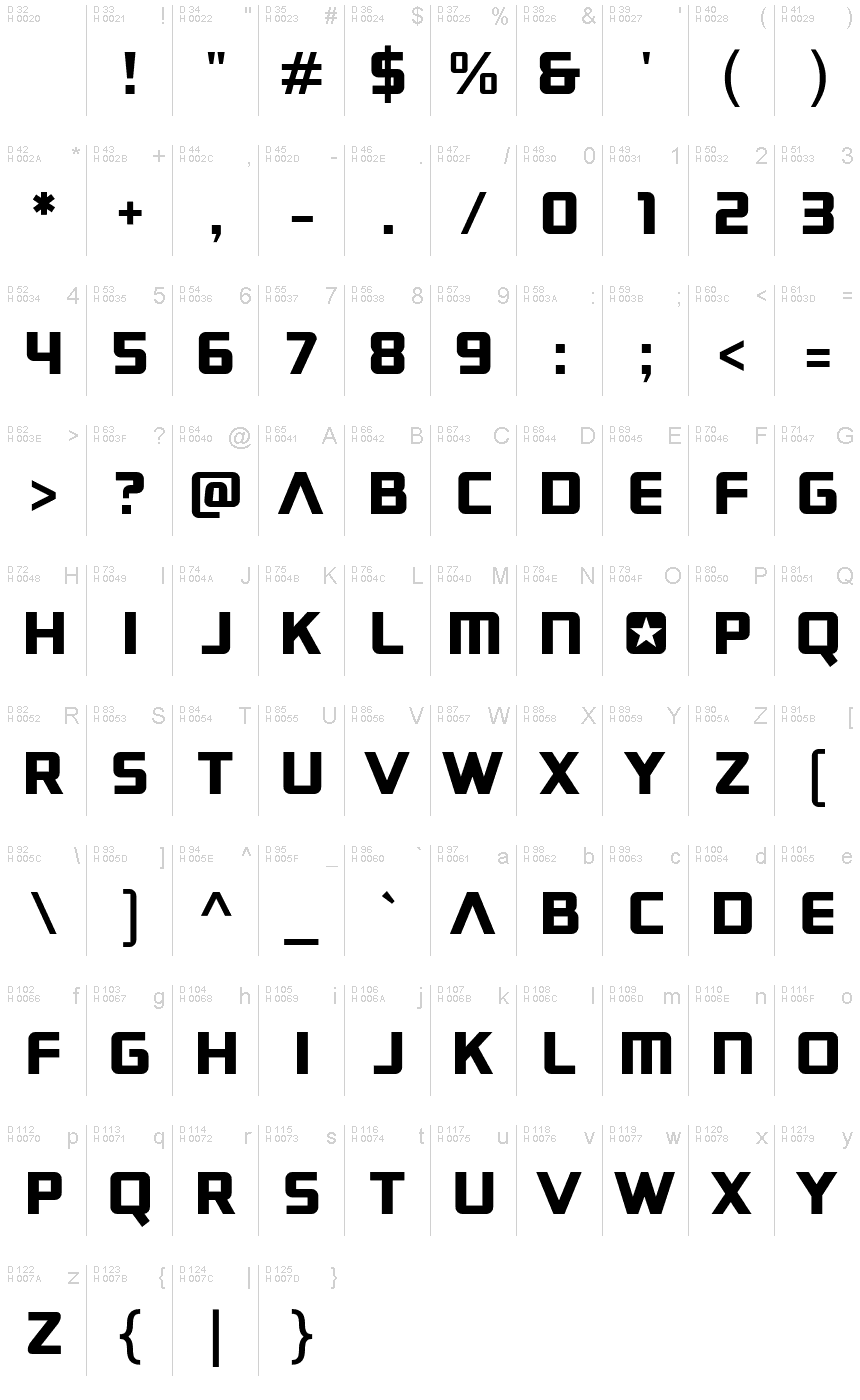
Conversi-Regular
Conversi by Drizy Studio is a bold, techno-inspired display font that is perfect for futuristic projects, gaming designs, and high-tech branding. With its expanded width and semi-bold weight, Conversi commands attention and makes a statement. This typeface is ideal for creating eye-catching headlines, logos, and advertisements that need to stand out in a crowded digital landscape. Whether you're designing a cutting-edge website or developing a sci-fi video game, Conversi is the perfect choice for any project that demands an edgy, modern look.